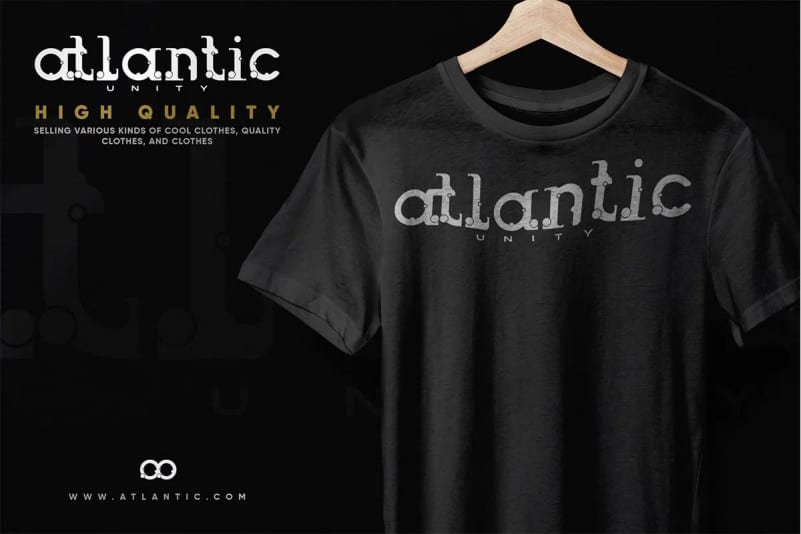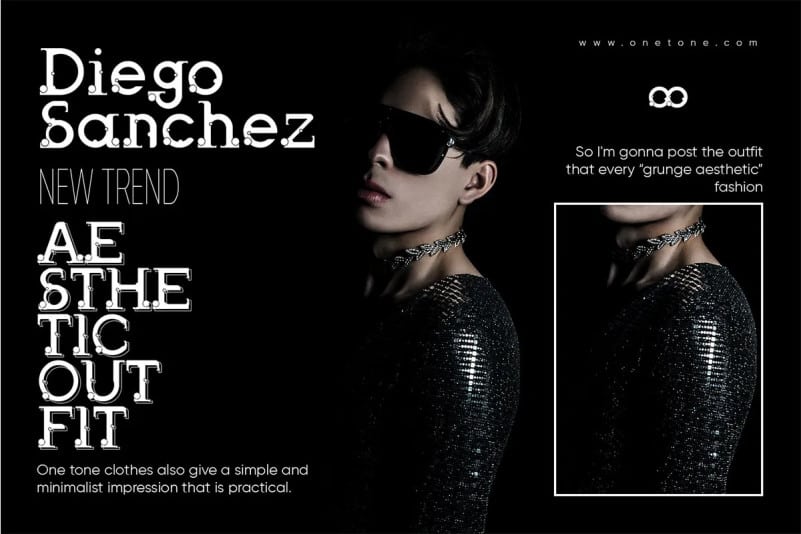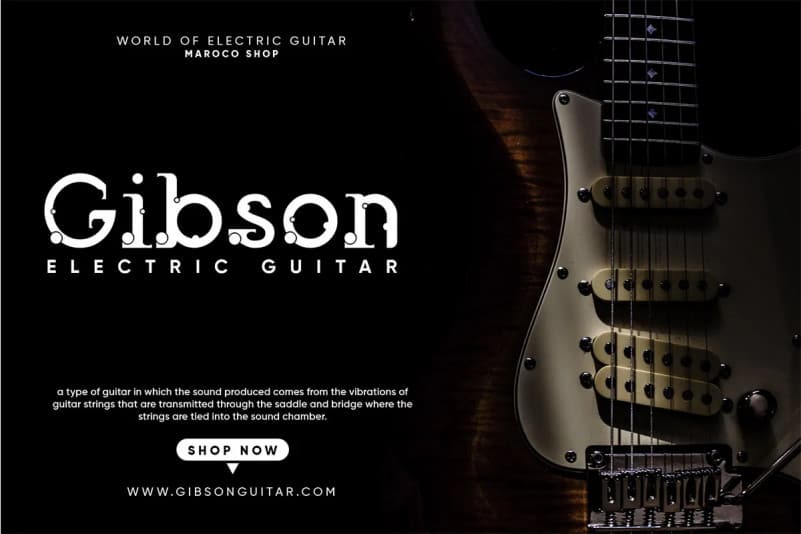
Odessa Display Font
Odessa Display Font is a modern sans display typeface , display font based off of highway lettering manuals from before the 1980’s. Also with a few additions and revisions. Perfect for headlines, branding and logos, and really any project that you would want to add a sans serif font that has a subtle hand done feel.